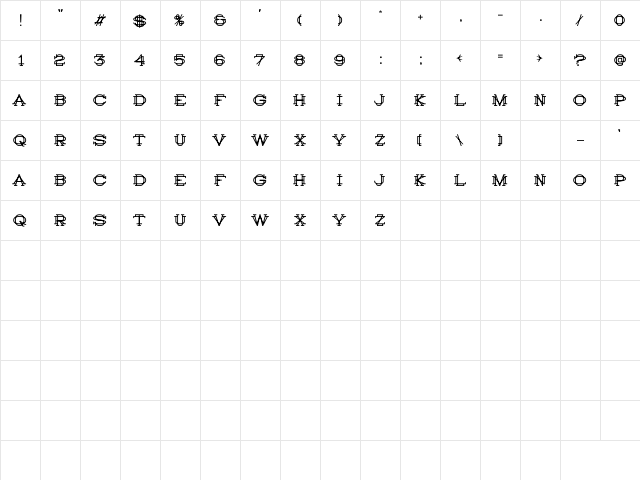
History Repeating Regular
| Foundry | Starving-4 Entertainment |
| Designer | Darren Rigby |
Design Context for History Repeating Typeface
History Repeating is a composed and adaptable typeface that performs quietly and consistently across a wide range of design contexts.